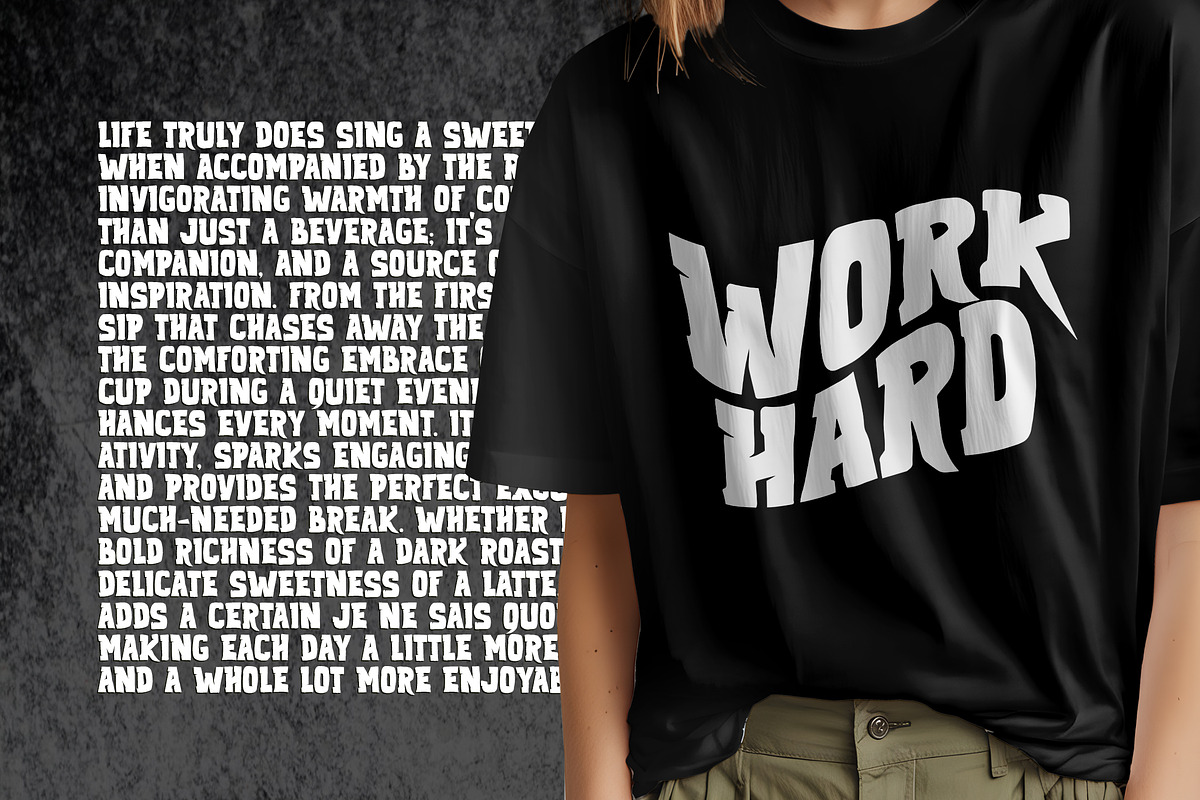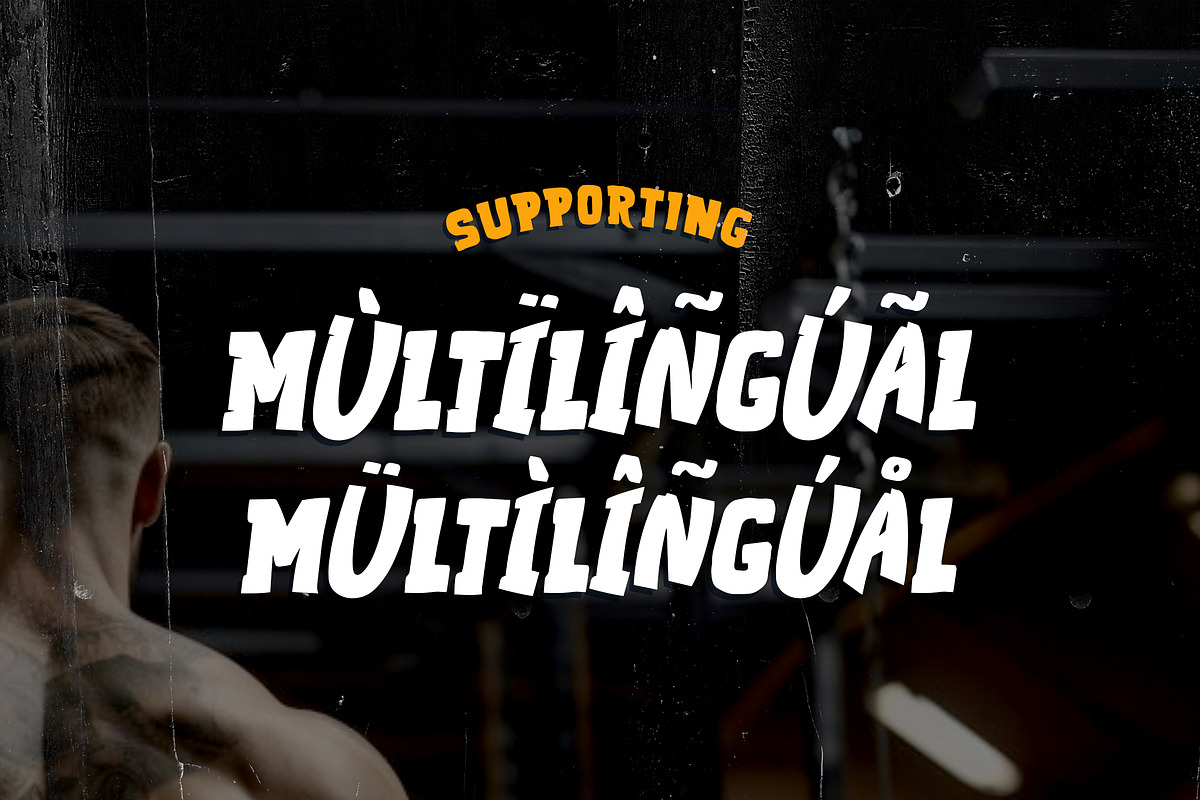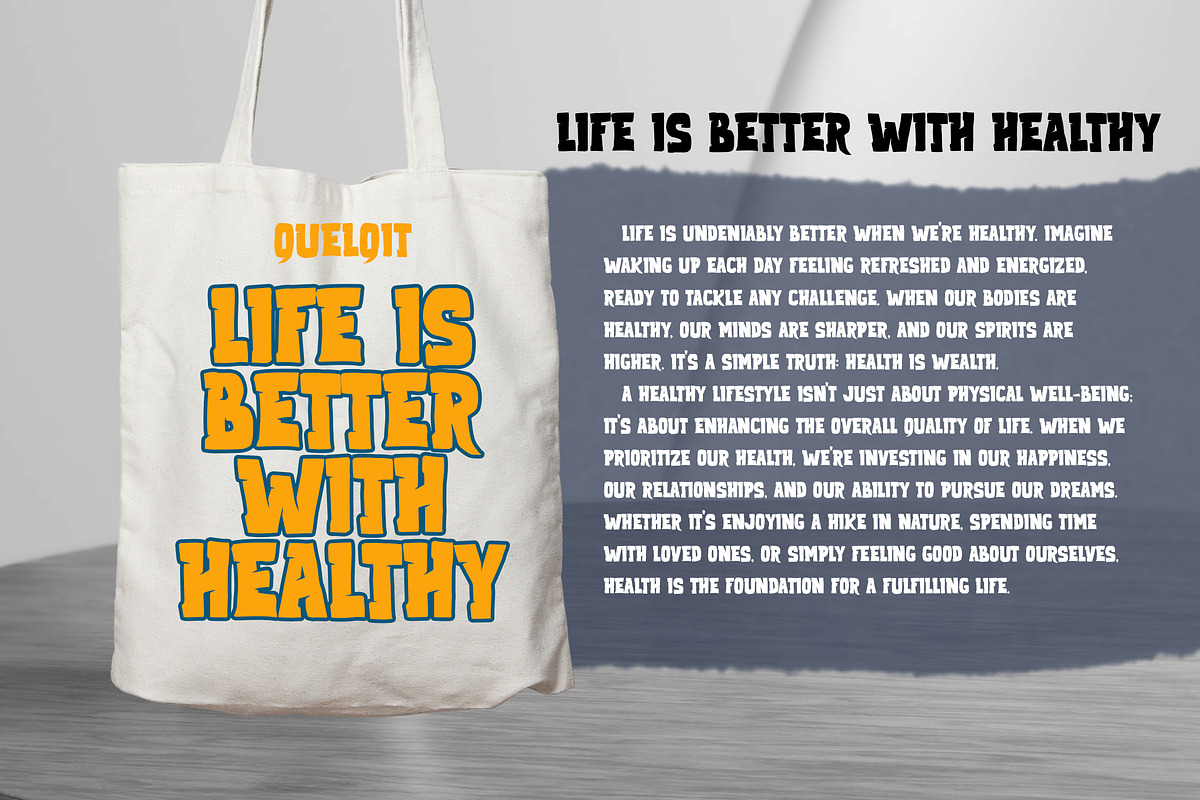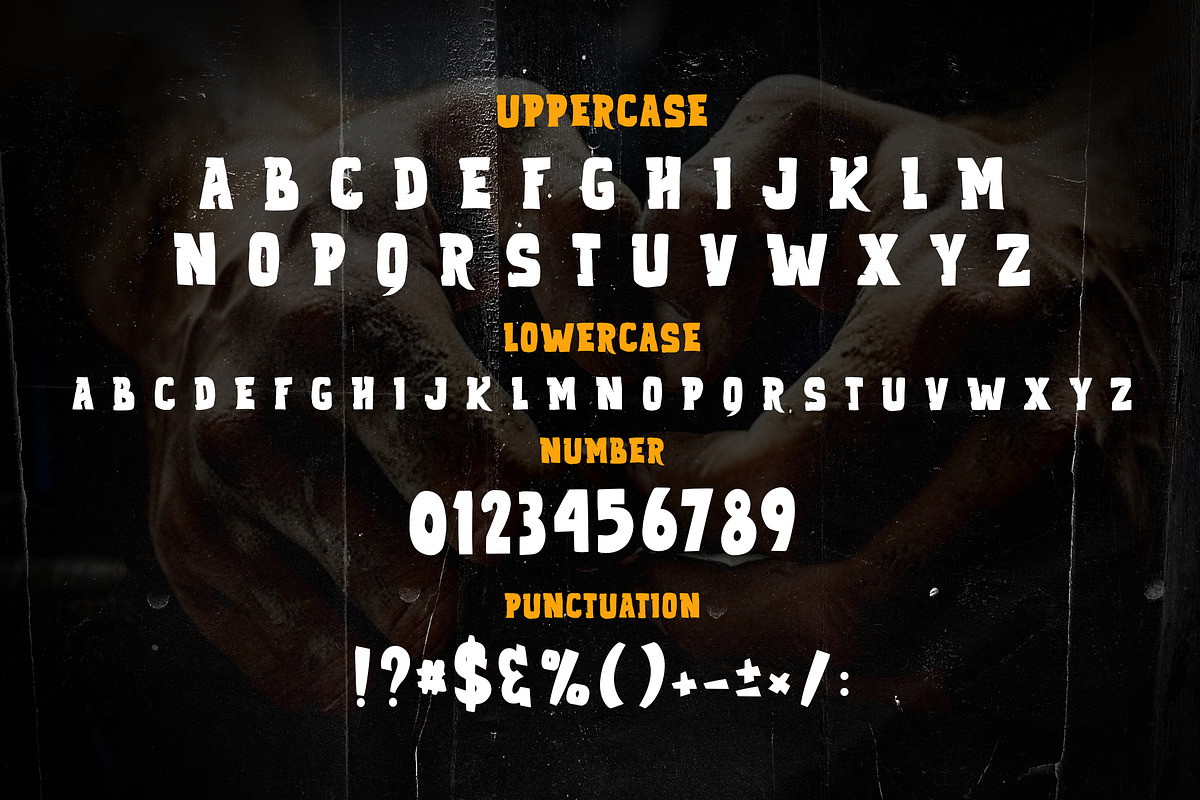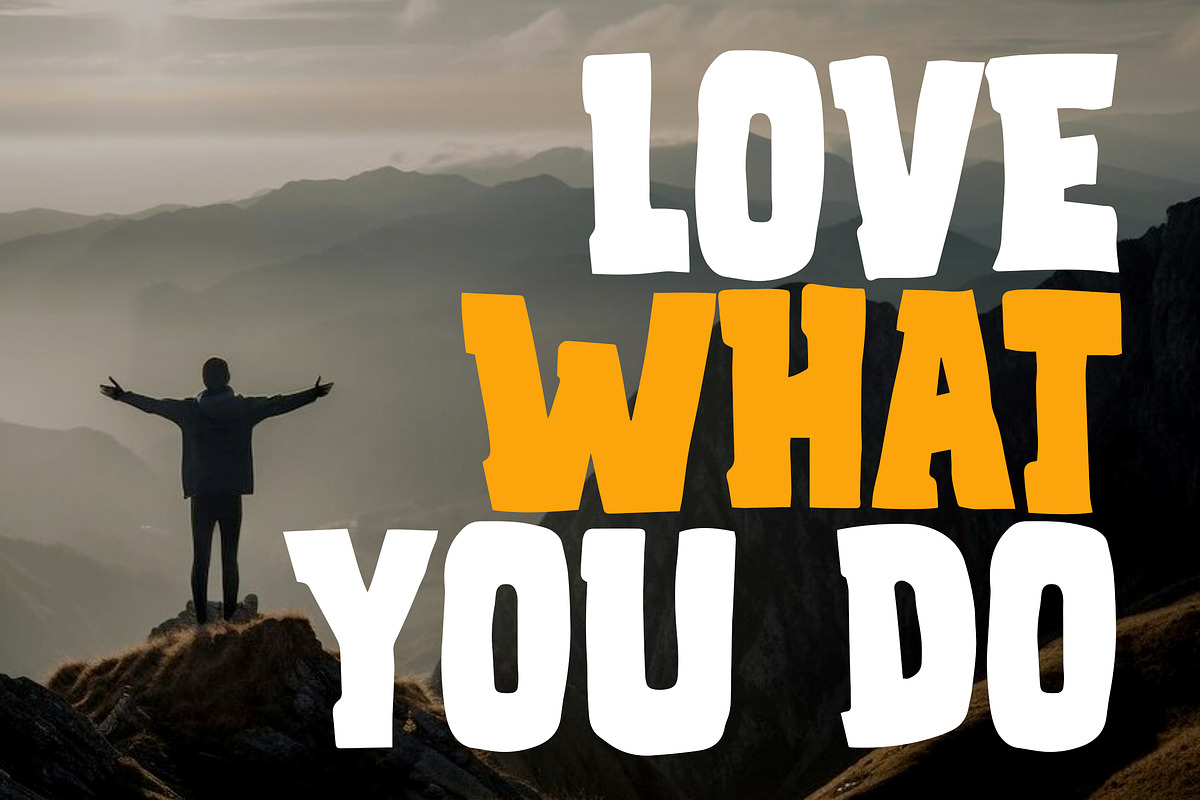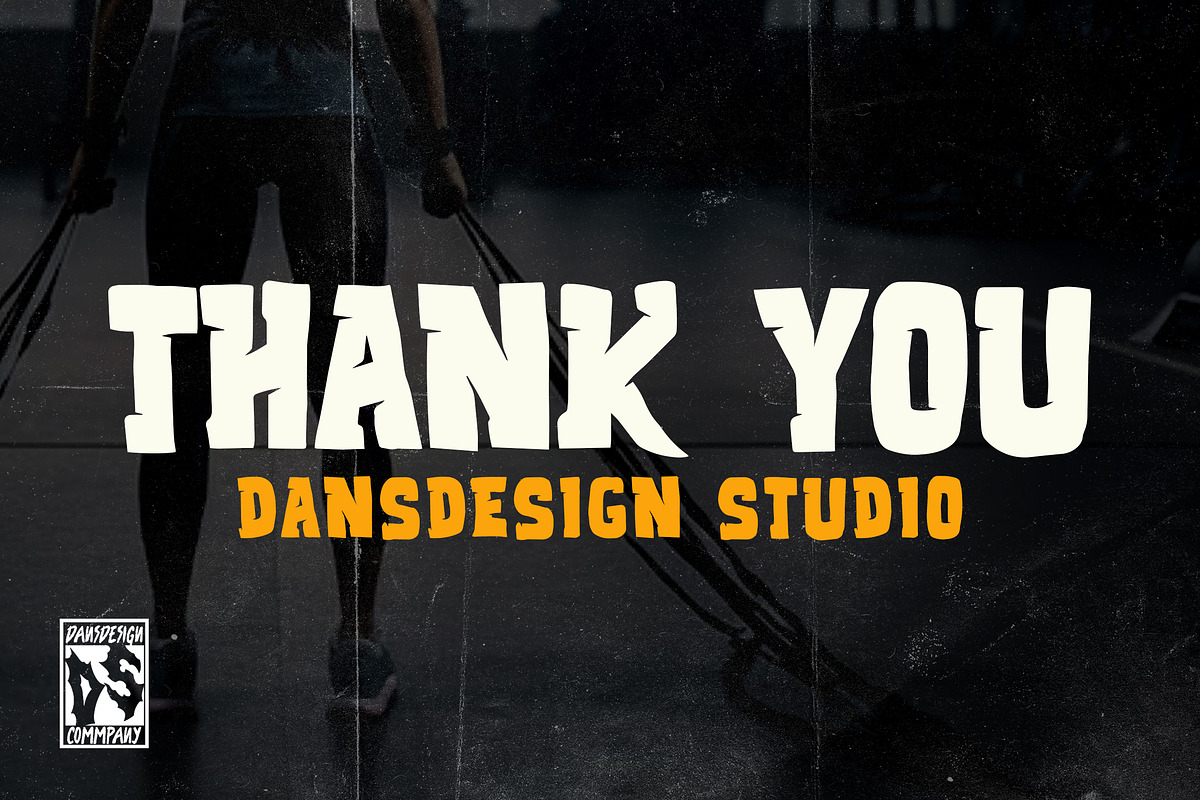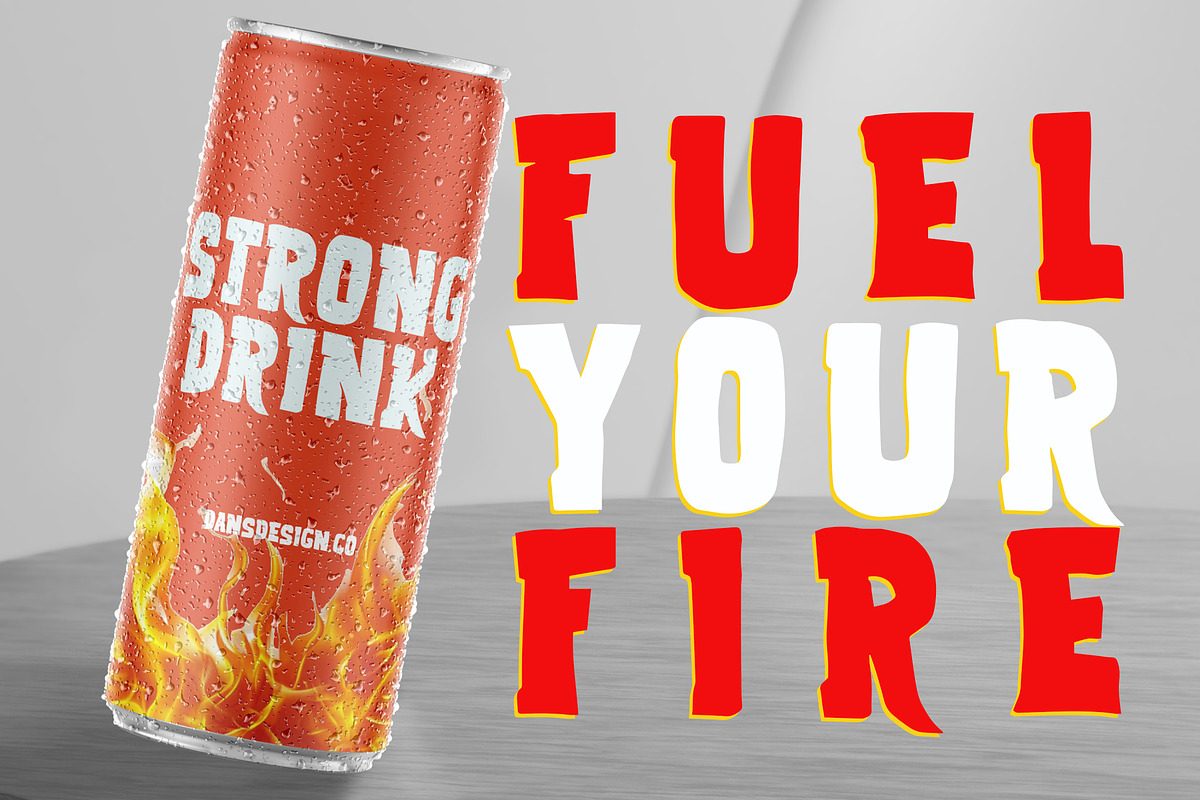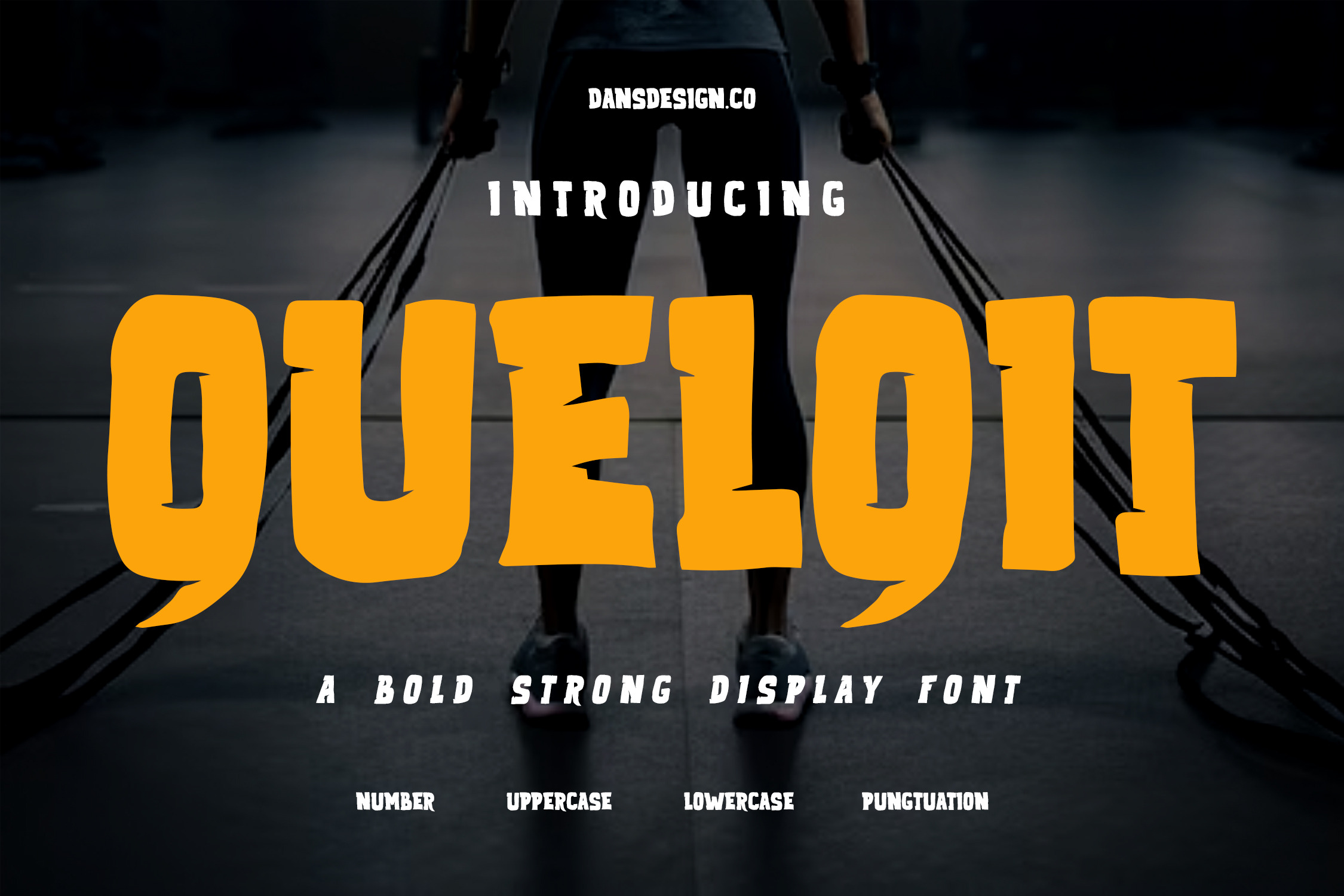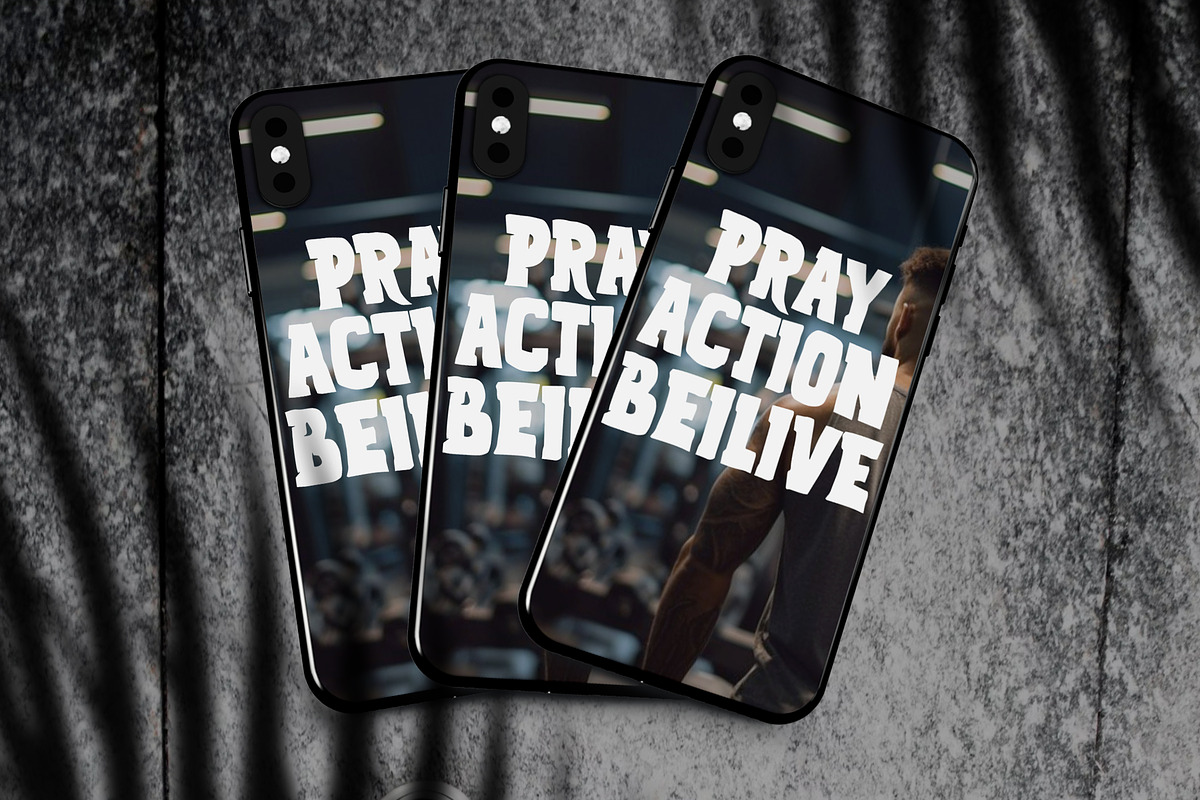
Quelqit Bold Comic Display Font
Quelqit Bold Comic Display Font is a distinct, highly detailed. Marker Display Font. It would make a great choice for exquisite retro-urban designs, business branding, logos, and more.